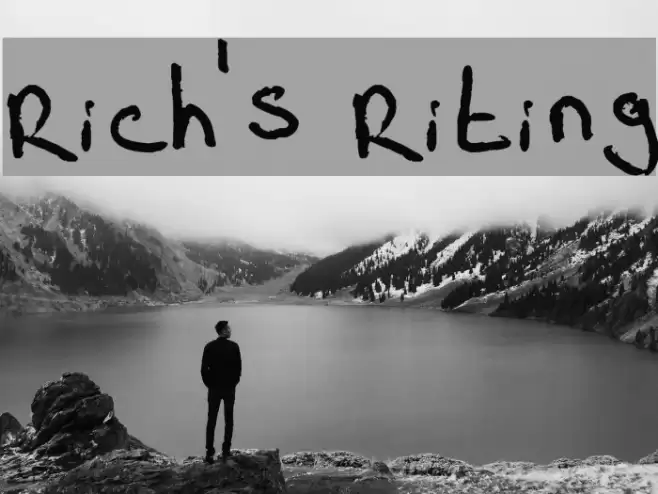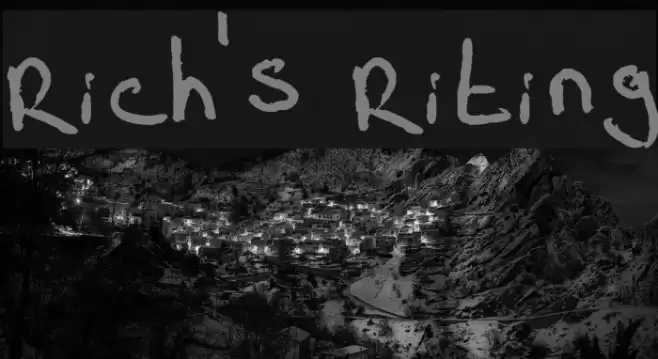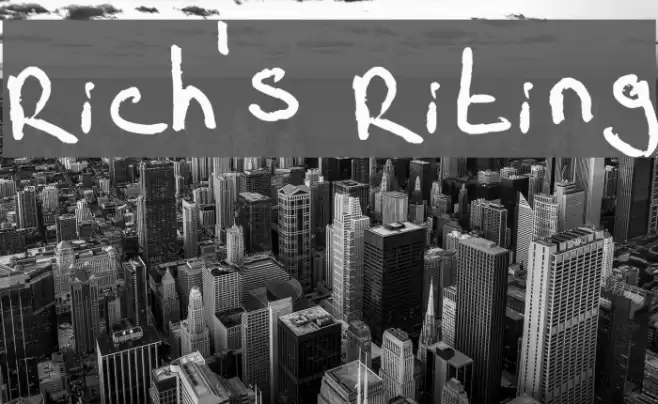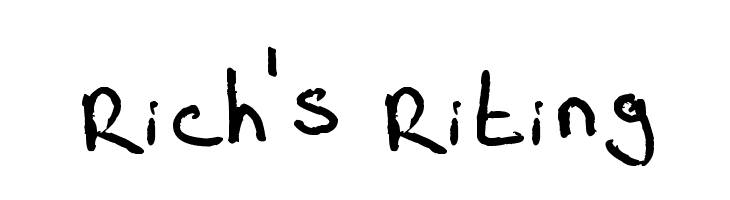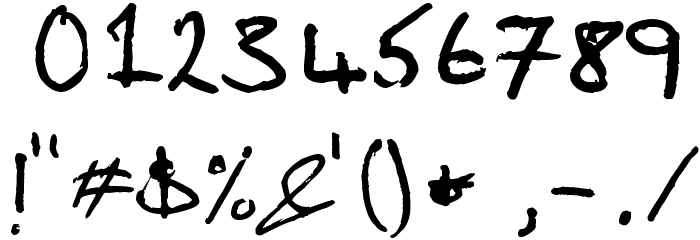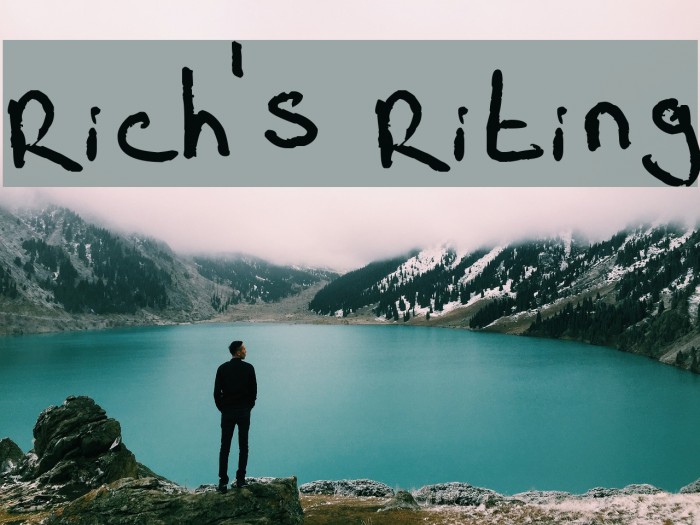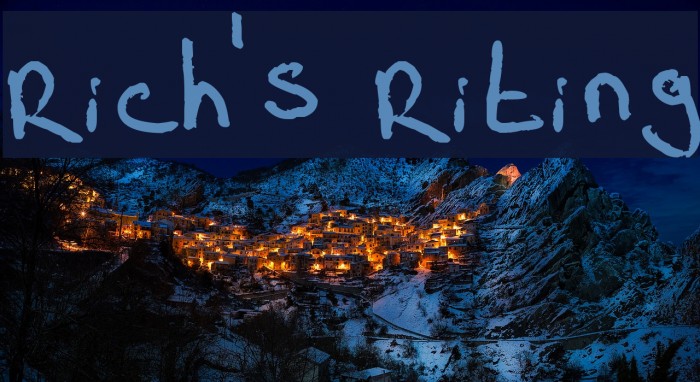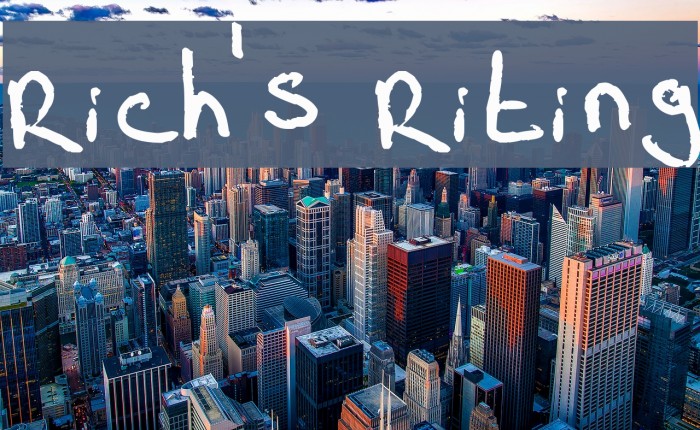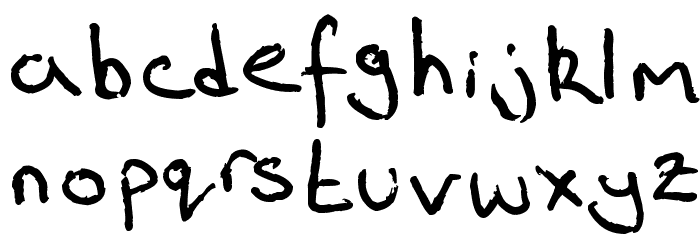
Rich's Riting Font
Rich's Riting Description
This font exhibits a casual, handwritten style with a playful and informal appearance. The letters are unevenly shaped, mimicking the natural flow of handwriting. The strokes are varied in thickness, giving it a dynamic and lively feel. The characters are slightly tilted, adding to the informal aesthetic. The font includes both uppercase and lowercase letters, numerals, and a variety of special characters. Its organic and spontaneous look makes it suitable for projects that require a personal touch.
A casual, handwritten font with varied stroke thickness and a playful appearance from Handwritten fonts.
- Proposed Projects: Ideal for greeting cards, personal notes, informal invitations, and creative projects that benefit from a personal, handwritten touch.
- Overall Style: Casual
- Use Case: Logos, Invitations, Greeting Cards